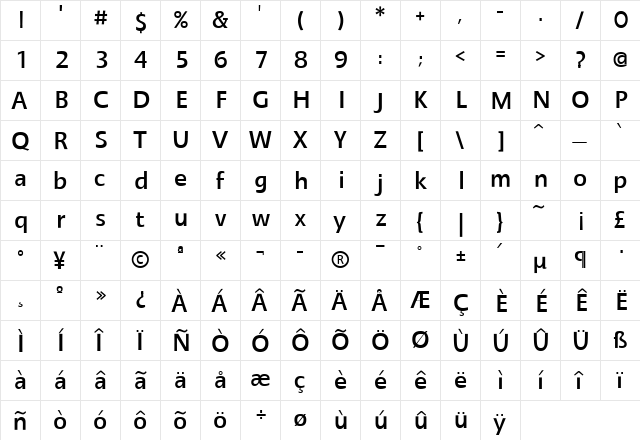
AIQuanta Medium
Design Context for AIQuanta Typeface
AIQuanta is a composed and adaptable typeface that performs quietly and consistently across a wide range of design contexts.
Pro Tip: Pair AIQuanta with a font of contrasting weight or personality to build a more expressive typographic hierarchy.